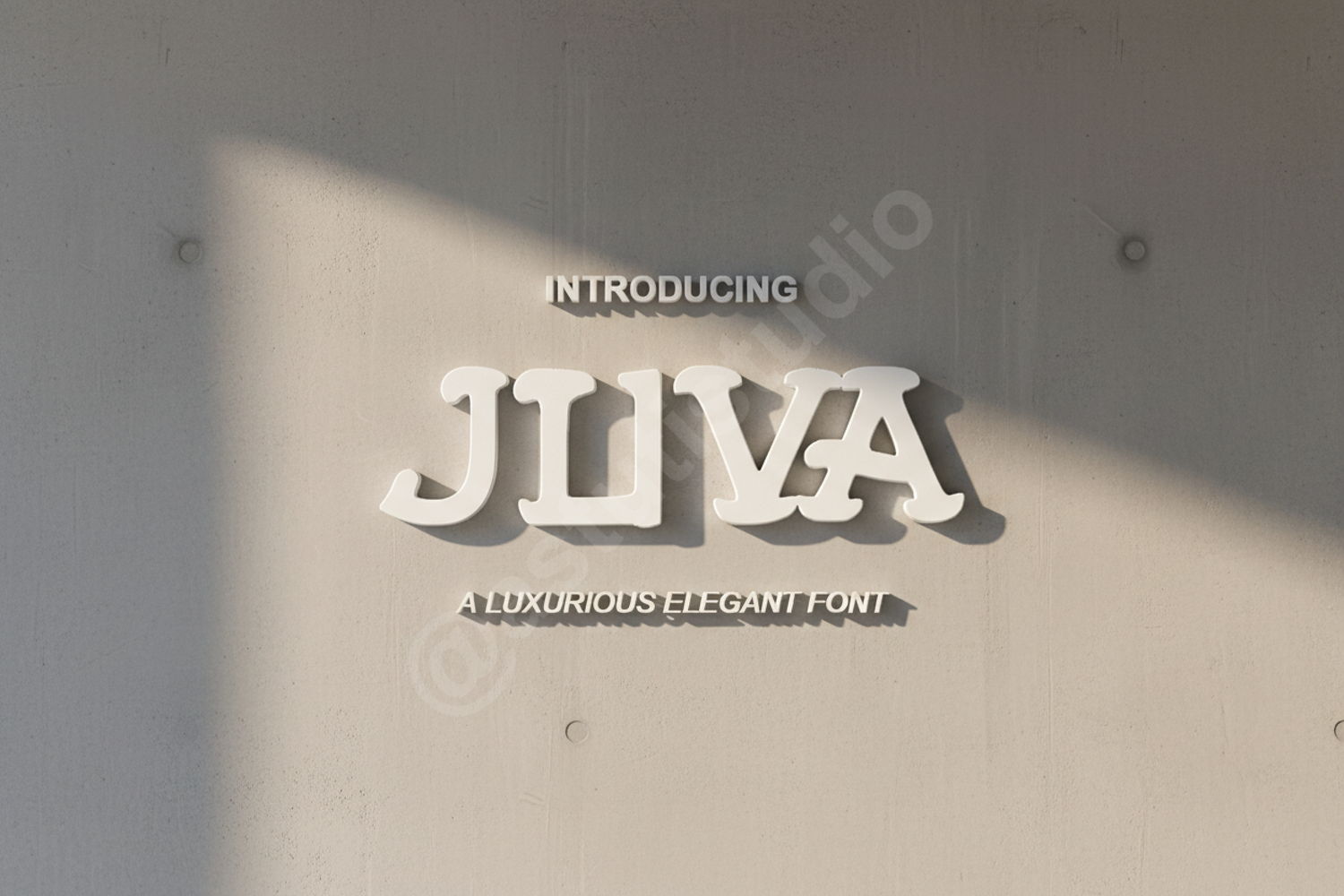
Juva - Elegant Modern Serif Font
Juva
Experience the perfect blend of sophistication and modern aesthetics with Juva. This premium serif font is meticulously crafted to bring a touch of class to any design project. Its balanced proportions and clean lines make it a versatile choice for designers seeking a timeless yet contemporary look. Whether you are working on a high-end brand identity or a minimalist editorial layout, Juva provides the professional edge your work deserves.
- Multilingual support for global accessibility
- Standard ligatures and character alternates